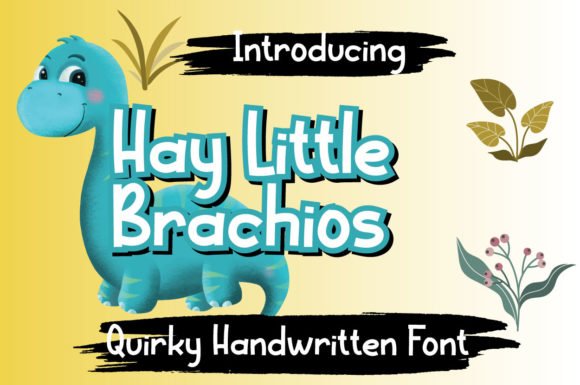
The Sweet Spot of Typography: Hay Little Brachios Font
As a designer, have you ever found yourself staring at a blank page, trying to come up with the perfect font to capture the whimsy of a children’s project? I know I have! Sometimes, it’s the smallest details that make all the difference. And that’s exactly what makes Hay Little Brachios Font so special – it’s the perfect blend of playfulness and authenticity.
Hay Little Brachios Font is a display font designed specifically for children’s activities and school projects. Its cute and friendly design makes it an instant hit with kids, while its versatility ensures it’s just as appealing to parents and educators. For designers, Hay Little Brachios Font offers a valuable opportunity to add a touch of personality to their work, making it stand out in a crowded market.
Key Features of Hay Little Brachios Font
- Font Family: Hay Little Brachios is a sans-serif font family.
- Character Set: Supports a wide range of characters, including Latin, Cyrillic, and Greek alphabets, as well as various punctuation marks and symbols.
- Size and Resolution: Designed to be highly legible at various font sizes, from 8pt to 48pt, and resolutions up to 300 DPI.
- Unique Characteristics: Features a distinctive, playful style with rounded edges and a friendly, approachable feel.
Honest Designer Review: Hay Little Brachios Font
I recently had the chance to work with the Hay Little Brachios Font, and I have to say, it’s been an interesting experience. Here are my thoughts:
- The unique, whimsical design of the font is definitely a standout feature. It’s perfect for adding a touch of personality to children’s books, educational materials, or even branding for a quirky company.
- The font is highly customizable, with a wide range of weights and styles to choose from. This makes it easy to tailor the font to your specific needs.
- The font is also highly legible, even at small font sizes, which is a must for any font intended for digital use.
- The font may be too whimsical for some designs, and could potentially distract from the content being presented.
- The font is not as versatile as some other fonts on the market, and may not be suitable for more formal or professional applications.
Overall, I think the Hay Little Brachios Font is a great choice for designers looking for a unique and playful font. While it may not be suitable for every project, it’s definitely worth considering for the right kind of design.
The Hay Little Brachios font is perfect for:
1. Children’s book illustrations and design.
2. Whimsical branding and advertising.
3. Retro-style graphics and design.
Q: What is the character set of Hay Little Brachios?
Hay Little Brachios includes a comprehensive character set, including Latin, Greek, and Cyrillic alphabets, as well as punctuation and special characters. The font also supports a wide range of languages, making it suitable for use in multilingual projects.